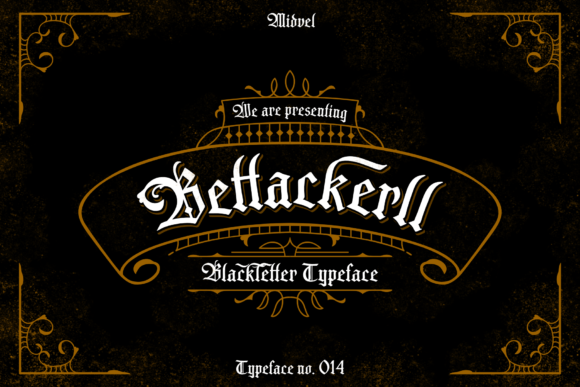
Bettackerll: The Font of Enchantment for a Finger Tattoo that Captivates!
Indulge in the hypnotic allure of Bettackerll, a breathtaking blackletter font that will transform your finger tattoo into a masterpiece. As a creation of the renowned Midvel, this font encapsulates elegance and sophistication like no other.
Picture your tattoo as a symphony of intricate lines, dancing gracefully across your finger. Bettackerll's Gothic-inspired curves and flourishes evoke a timeless charm that will leave an unforgettable impression.
But beyond its captivating aesthetics, Bettackerll is a font of functionality. Its PUA encoding grants you effortless access to an array of glyphs and ligatures, empowering you to personalize your tattoo with a touch of artistry.
Whether you seek a bold statement or an air of subtle sophistication, Bettackerll effortlessly adapts to your vision. Imagine the vibrant ink flowing seamlessly along your finger, creating a work of art that whispers a tale of your individuality.
Step into the realm of enchantment with Bettackerll, where your finger tattoo transcends the ordinary and becomes a symbol of your unique style and spirit. Let this font guide you on a journey of self-expression, leaving an indelible mark that will be cherished for years to come.